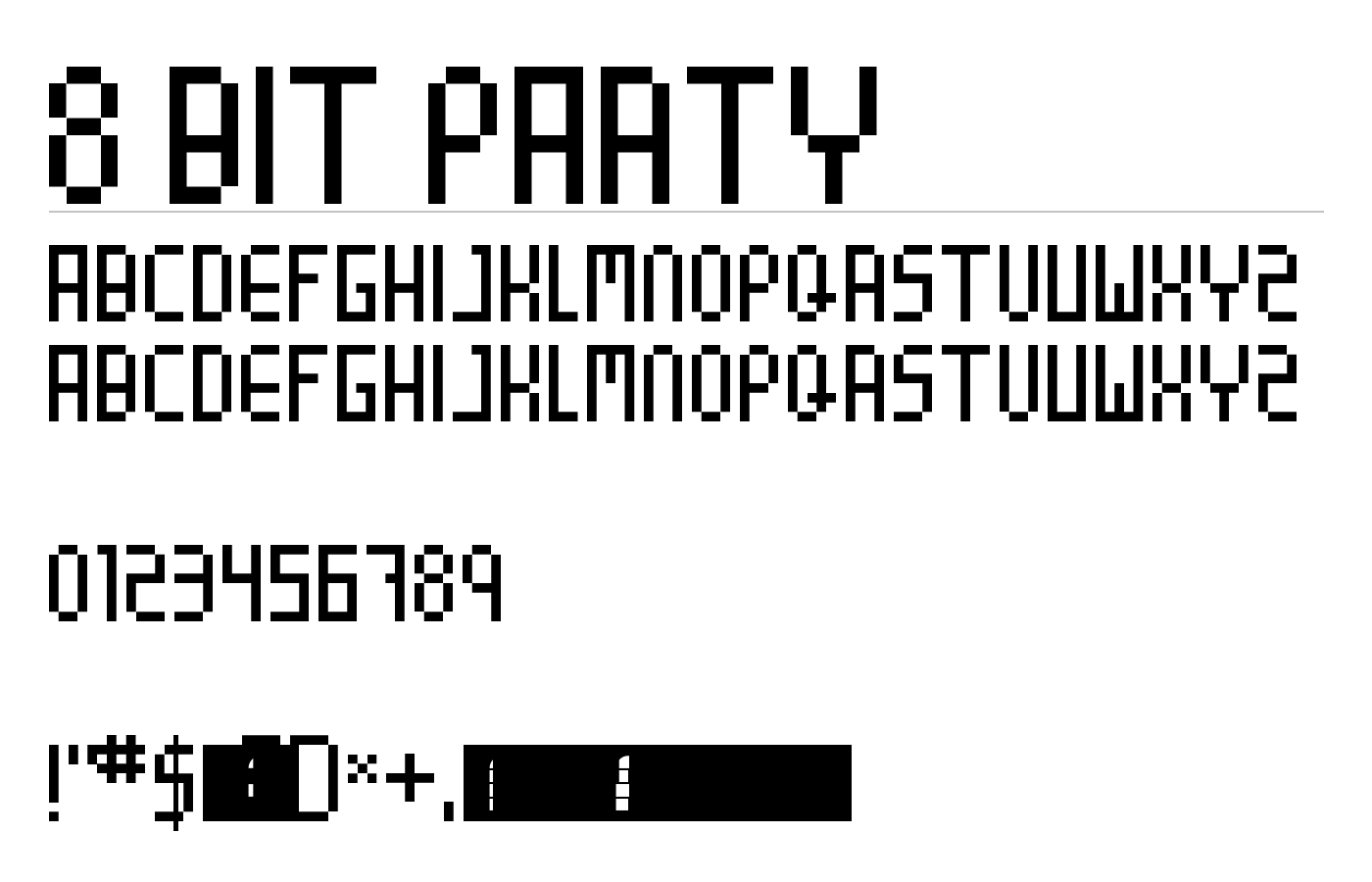
8 Bit Party is a pixelated, monospaced sans serif font that channels the retro charm of early digital and video game typography. Its blocky, geometric shapes with consistent stroke weight and high x-height give it a playful, nostalgic feel, perfect for tech-themed or vintage gaming projects. This font works best for headlines, logos, and digital displays where a fun, bold, and unmistakably pixel-art aesthetic is desired.
8 Bit Party Font
About 8 Bit Party Font
| Font family | 8 Bit Party Font |
| Designer | YORYANBEAVER |